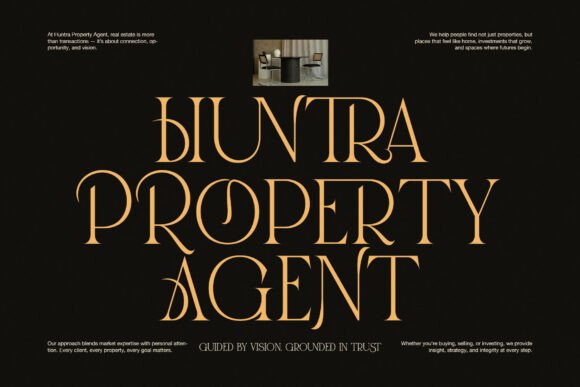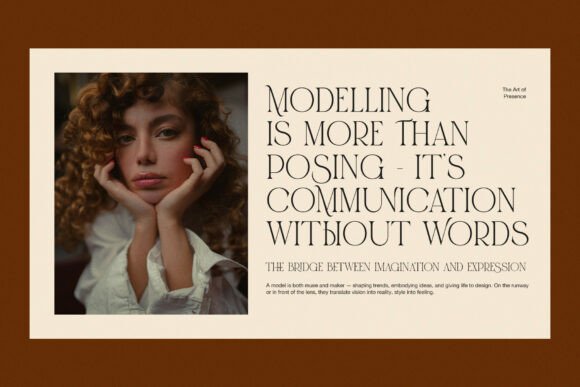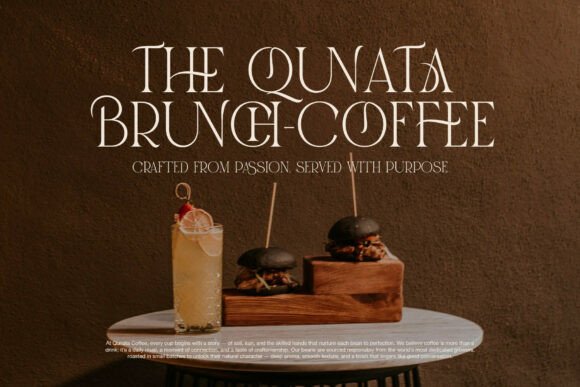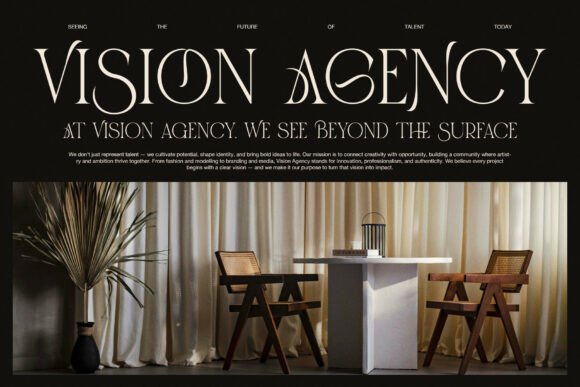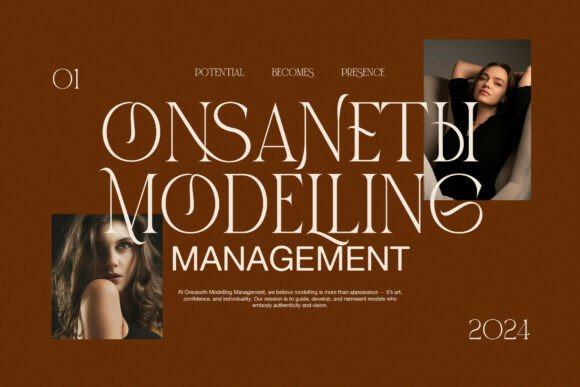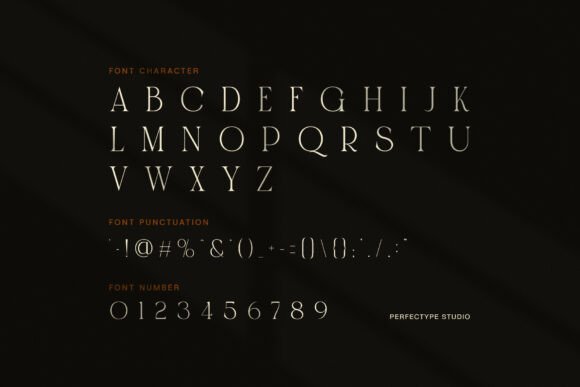
Introducing Grons Marune Font: A Timeless Elegance for Modern Design
In the world of typography, few fonts manage to strike a balance between classic sophistication and modern flair. Grons Marune, an elegant serif font, is one such exceptional typeface that brings together the best of both worlds. With its refined artistry, deliberate design, and versatile nature, Grons Marune is poised to elevate any design project to new heights of luxury and cinematic beauty.
The Artistry Behind Grons Marune
Grons Marune is not just a font; it’s a masterpiece of typographic design. Every curve, every serif, and every detail has been meticulously crafted to convey a sense of balance, intention, and elegance. The font’s delicate contrast and graceful rhythm work in harmony to create a luxurious feel that is both captivating and sophisticated. Whether used in branding, editorial work, or any other design project, Grons Marune brings a touch of refined artistry that is hard to match.
A Perfect Blend of Sophistication and Versatility
One of the standout features of Grons Marune Serif Font is its ability to combine sophistication with versatility. Its smooth letterforms and refined details make it an ideal choice for a wide range of design applications. For minimalist layouts, Grons Marune adds a touch of elegance and poise, while in bolder designs, it brings a level of sophistication and prestige. This versatility makes Grons Marune a valuable asset for designers looking to create impactful and memorable compositions.
Evoking Confidence and Prestige in Branding
In branding, the choice of font can play a crucial role in shaping the perception of a brand. Grons Marune, with its luxurious and cinematic feel, is perfectly suited for brands looking to evoke confidence and prestige. The font’s elegant serifs and refined details convey a sense of high-end quality and sophistication, making it an excellent choice for luxury brands, high-end products, and services that require a premium feel.
Adding a Poetic Character to Editorial Work
In editorial work, such as in magazines, newspapers, and books, Grons Marune brings a touch of poetic character that can elevate the reading experience. The font’s graceful rhythm and delicate contrast create a sense of flow and harmony, making it perfect for body text and headlines alike. Whether used in a literary magazine or a fashion editorial, Grons Marune adds a level of sophistication and elegance that enhances the overall aesthetic of the publication.
Design and Craftsmanship
The design of Grons Marune is a testament to the power of meticulous craftsmanship. Every aspect of the font, from the letterforms to the kerning, has been carefully considered to ensure that it meets the highest standards of typographic excellence. The result is a font that not only looks beautiful but also performs exceptionally well across different mediums and applications.
Why Choose Grons Marune?
For designers and crafters looking for a font that combines timeless elegance with modern sophistication, Grons Marune is an excellent choice. Here are a few reasons why:
- Elegant Serif Design: Grons Marune boasts an elegant serif design that adds a touch of luxury to any composition.
- Versatile: The font’s smooth letterforms and refined details make it perfect for both minimalist and bold layouts.
- Sophisticated: Grons Marune combines sophistication with versatility, making it ideal for branding, editorial work, and more.
- High-Quality Craftsmanship: The font is a result of meticulous design and craftsmanship, ensuring it meets the highest standards of typographic excellence.
Grons Marune Font is a masterpiece of modern typography that brings together timeless elegance and sophisticated design. Its versatility, refined artistry, and luxurious feel make it an excellent choice for designers and crafters looking to elevate their projects. Whether used in branding, editorial work, or any other design application, Grons Marune is sure to leave a lasting impression. With its exceptional craftsmanship and attention to detail, Grons Marune is a font that will continue to inspire and influence design for years to come.